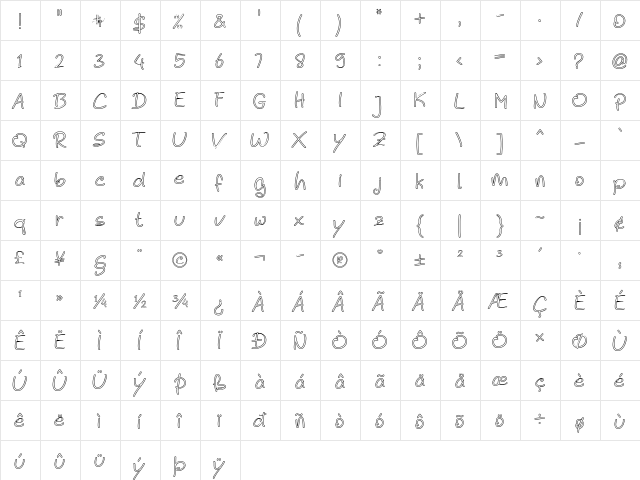
Noela Sherly Outline Regular
| Foundry | 7NTypes |
| Designer | Adyfo; Situjuh Nazara |
Design Context for Noela Sherly Outline Typeface
Noela Sherly Outline brings ornamental detail and strong personality to headlines and identities, where visual impact matters more than quiet functionality.
Font Pairing: Pair with a clean neutral sans-serif for body copy to let Noela Sherly Outline's character lead without overwhelming the composition.
Pro Tip: Treat Noela Sherly Outline as the centrepiece of your typographic hierarchy. One strong heading set in a decorative face can carry an entire layout.